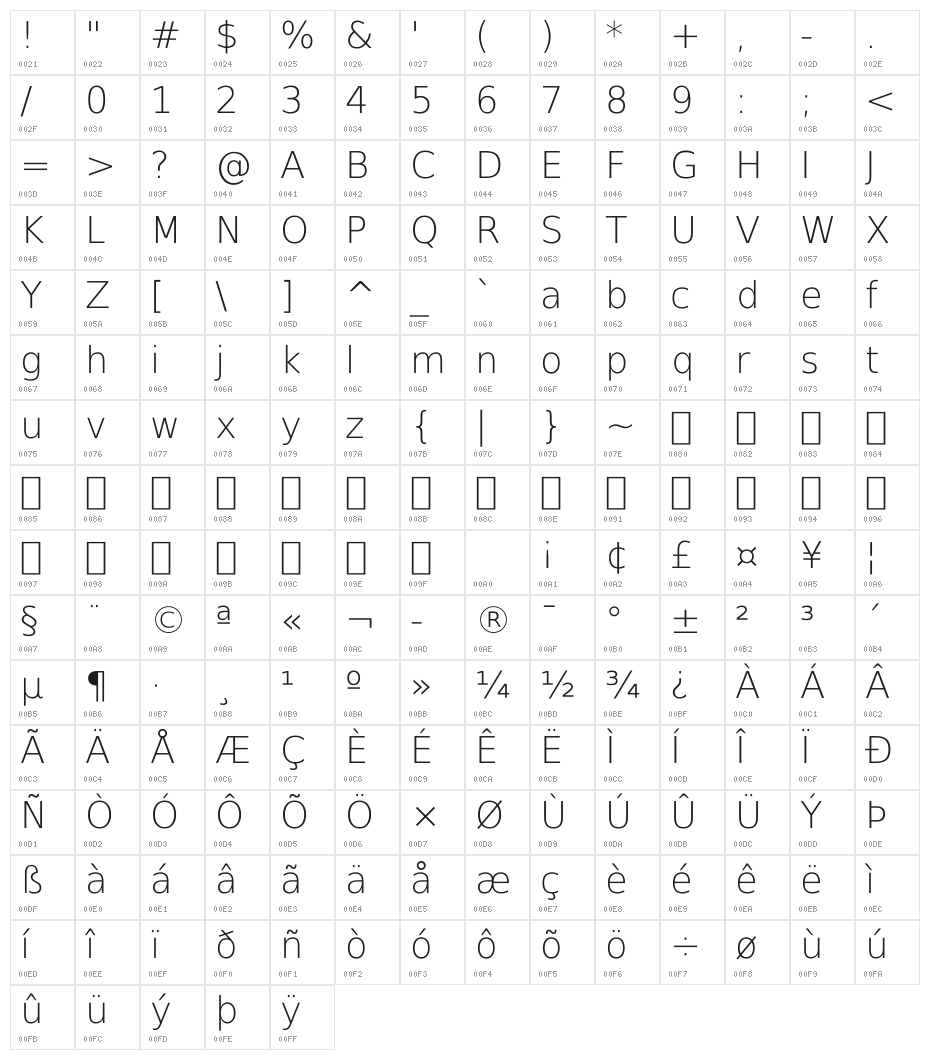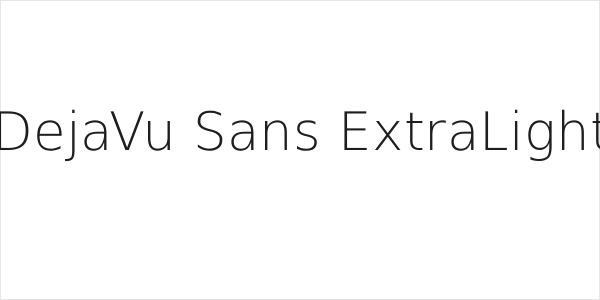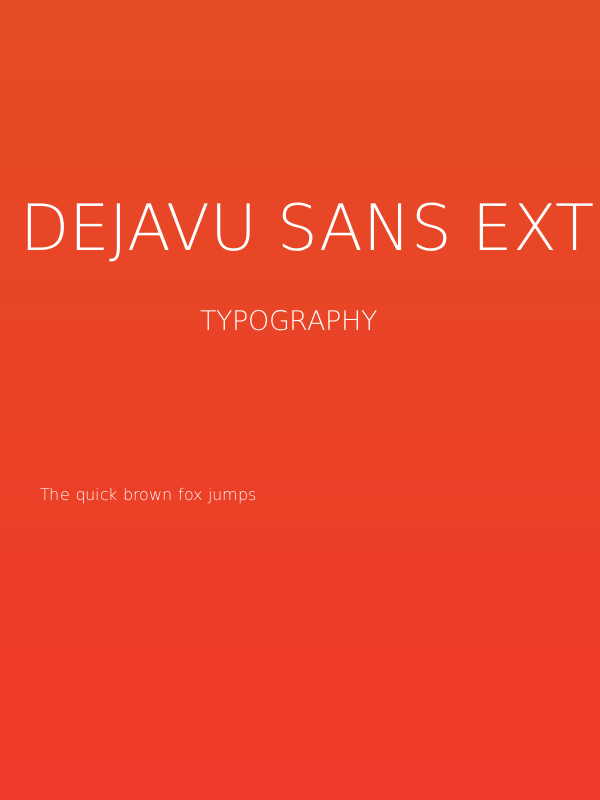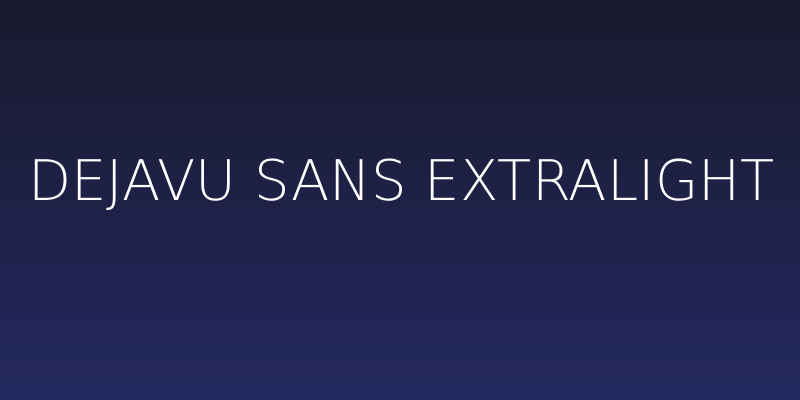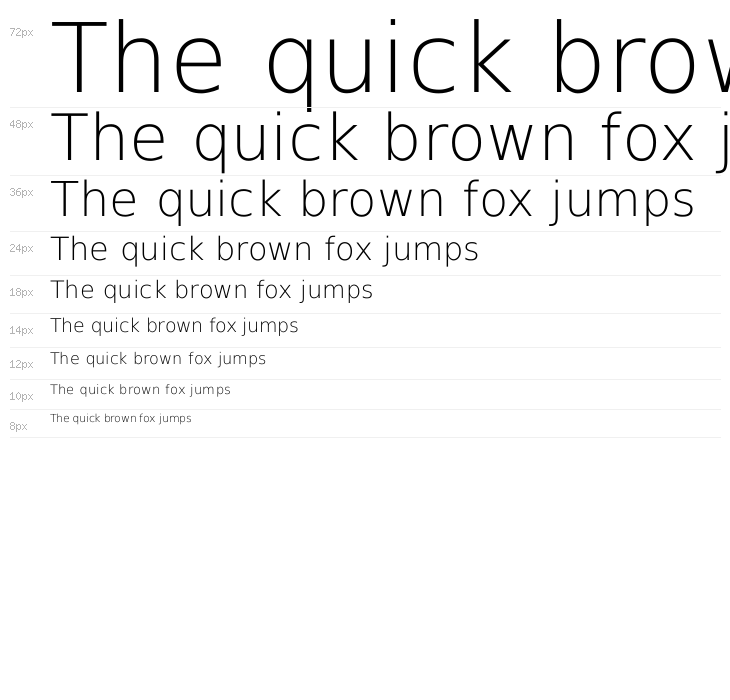
DejaVu Sans ExtraLight Font
DejaVu Sans ExtraLight Description
This font features a clean and minimalist design with a focus on readability and simplicity. The characters are evenly spaced with a uniform stroke width, giving it a modern and streamlined appearance. The uppercase and lowercase letters are well-proportioned, and the numerals align perfectly with the overall style. The special characters are distinct and clear, making it versatile for various applications. Its extra-light weight adds an elegant touch, suitable for projects that require a subtle yet sophisticated look.
Proposed ProjectsIdeal for digital interfaces, minimalist branding, modern web design, and clean editorial layouts.